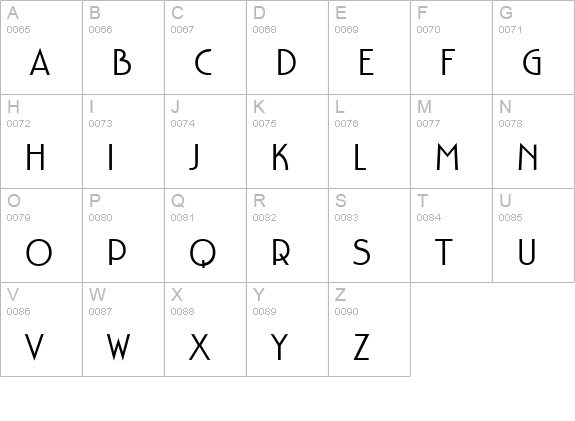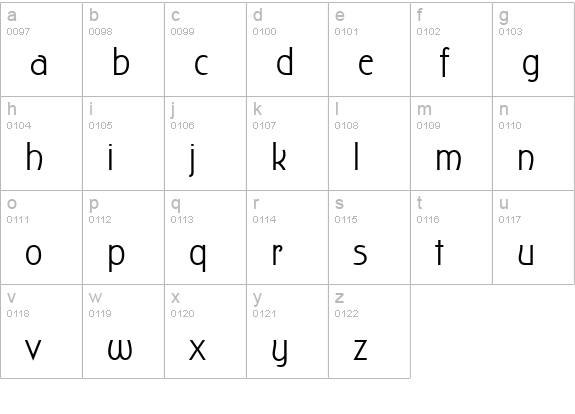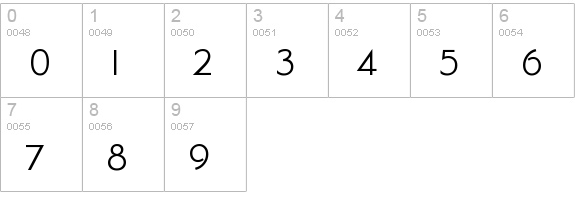
Hardwood Font Details
Introducing Hardwood font, a stunning typeface that exudes timeless elegance and sophistication. With its strong, bold letterforms and meticulously crafted details, Hardwood font commands attention and leaves a lasting impression. Designed with versatility in mind, Hardwood font is perfect for a wide range of design projects. Whether you're creating a logo, designing a poster, or crafting a beautiful website, this font will effortlessly elevate your work to new heights. The beauty of Hardwood font lies in its seamless blend of classic and contemporary elements. Its clean, modern lines are complemented by subtle vintage touches, giving it a unique and captivating charm. This font is not only eye-catching but also highly legible, ensuring that your message is conveyed with utmost clarity. One of the most appealing aspects of Hardwood font is that it is freely available to download at FontsMarket.com. This means that you can bring this exceptional typeface into your creative projects without any cost. Embrace the freedom to express your ideas with this extraordinary font, and let it become an invaluable tool in your design arsenal. Whether you're a seasoned designer or just starting out, Hardwood font is a must-have addition to your font collection. Its versatility, elegance, and the fact that it is freely accessible make it a truly irresistible choice. Download Hardwood font today at FontsMarket.com and unlock the potential to create stunning, professional designs that captivate and inspire.